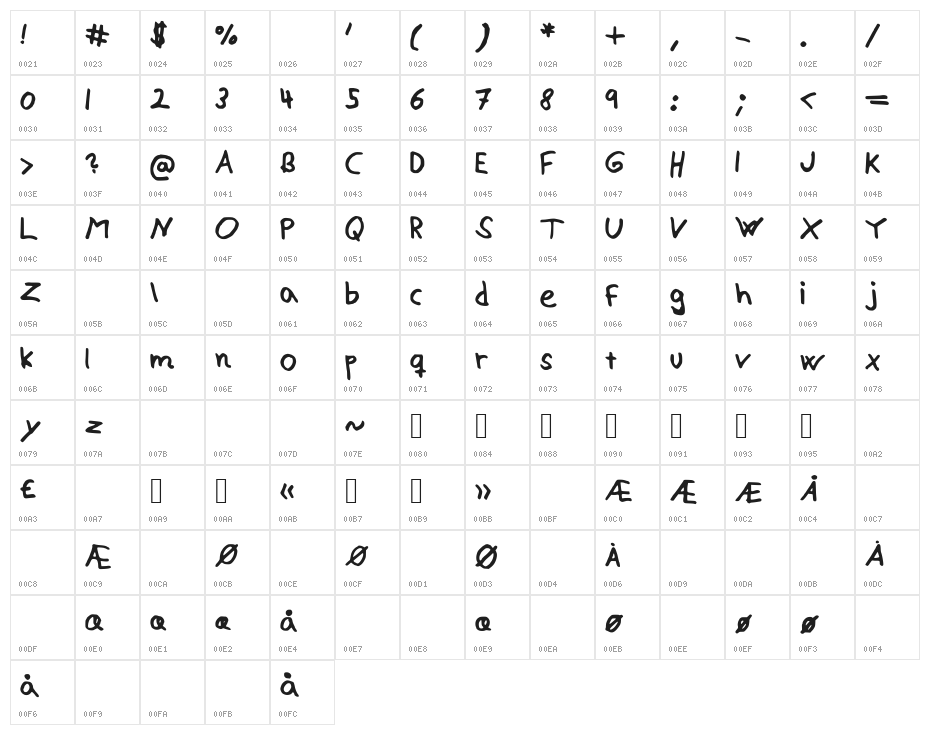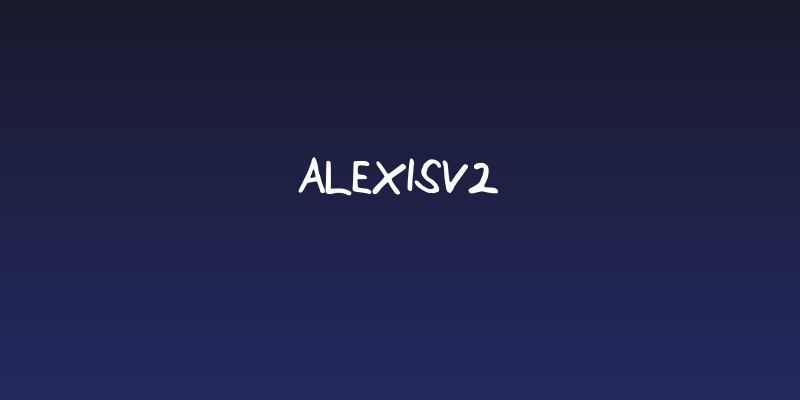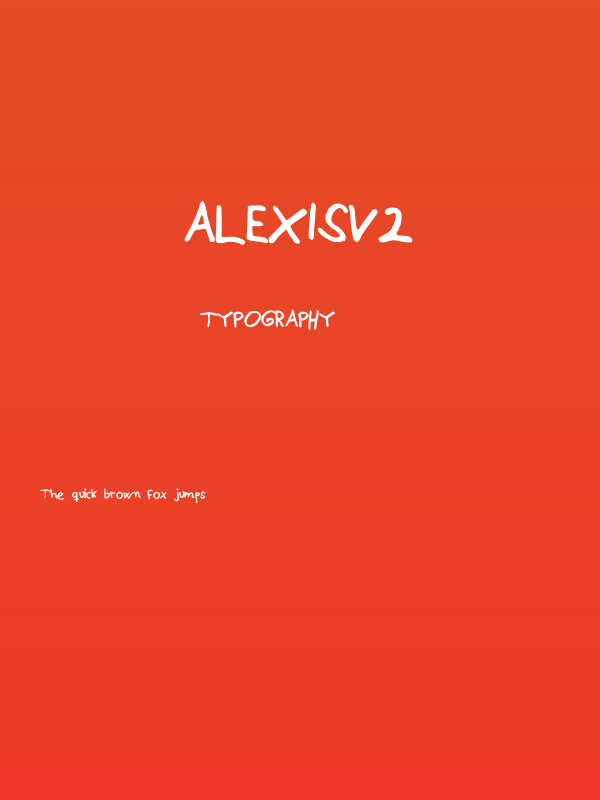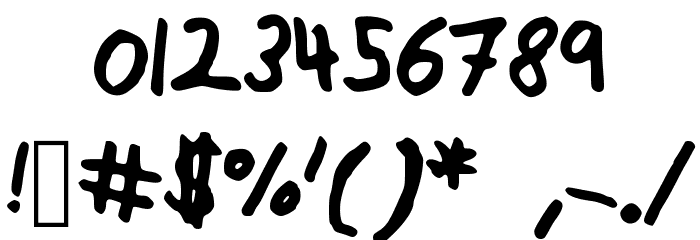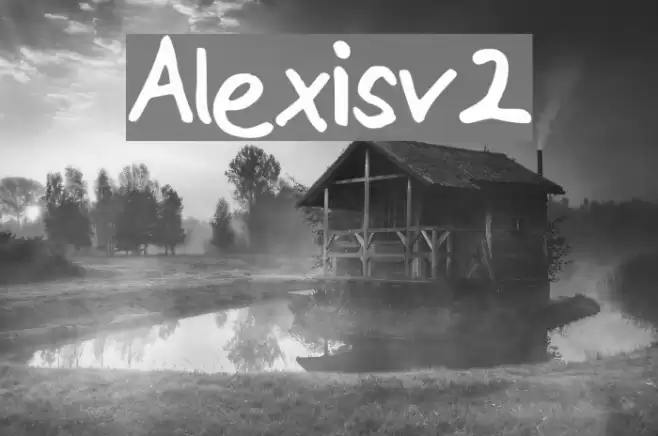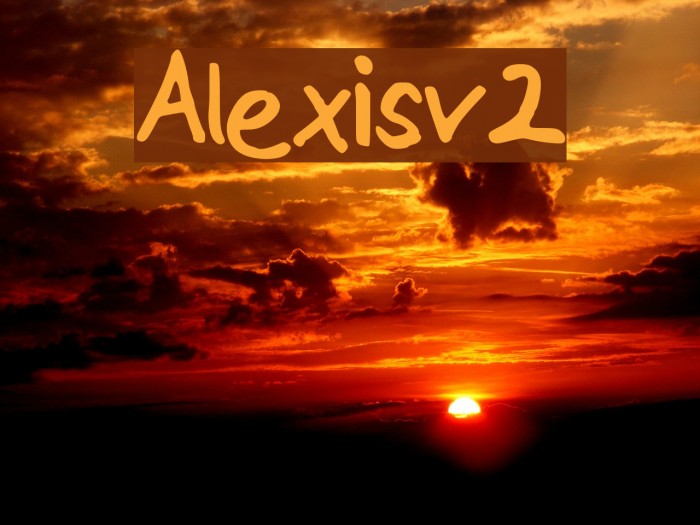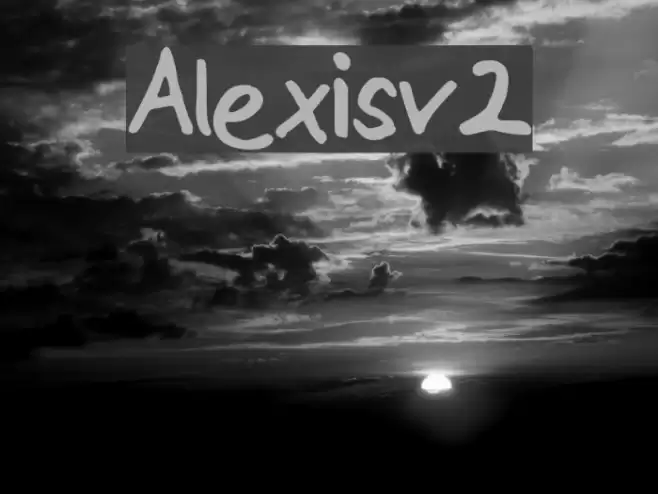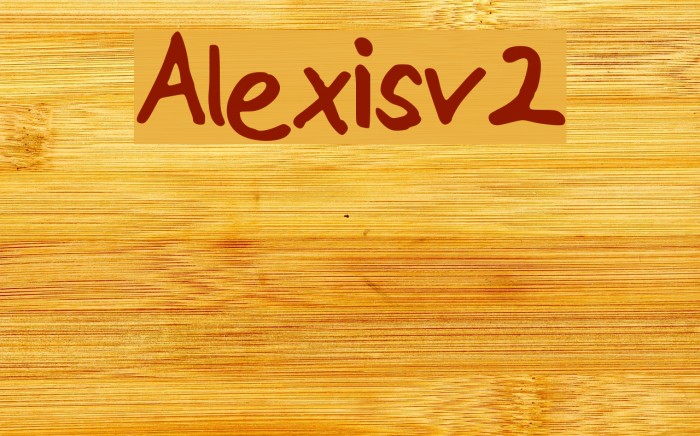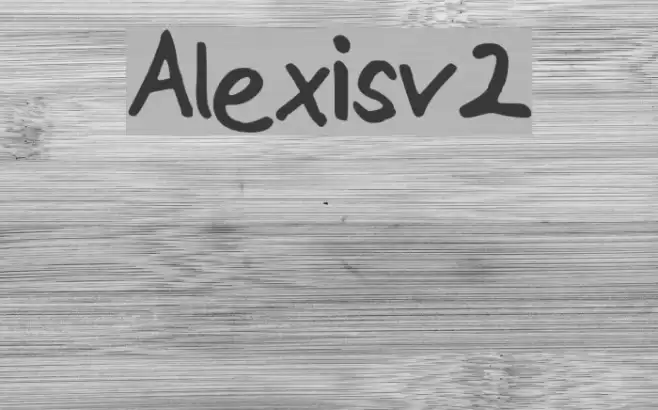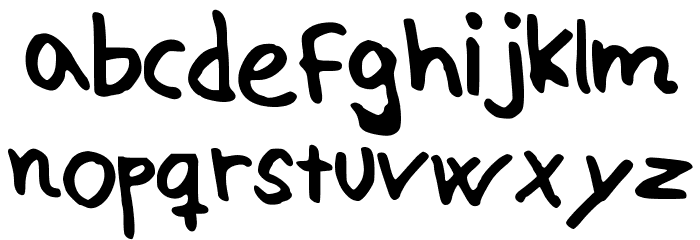
Alexisv2 Font
| Style général | Casual |
| Cas d'utilisation | Logos, Headlines, Informal Text |
| Projets proposés | Ideal for greeting cards, children's books, casual branding, and social media graphics. |